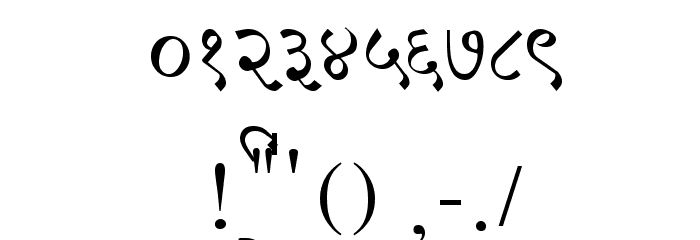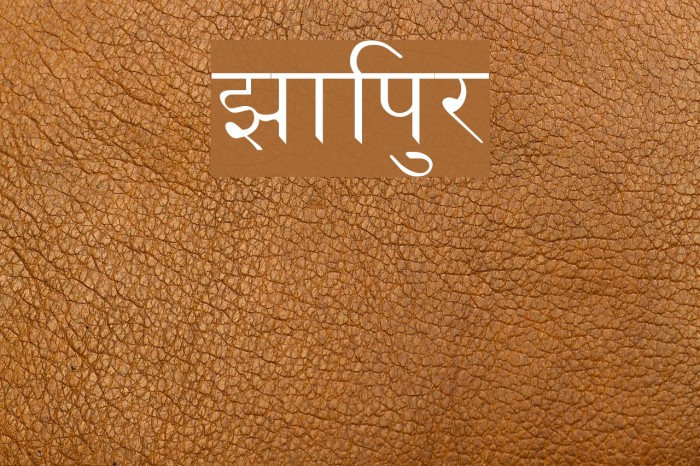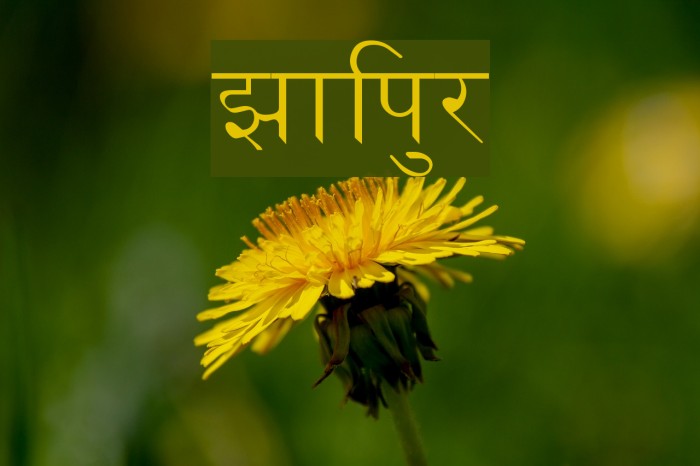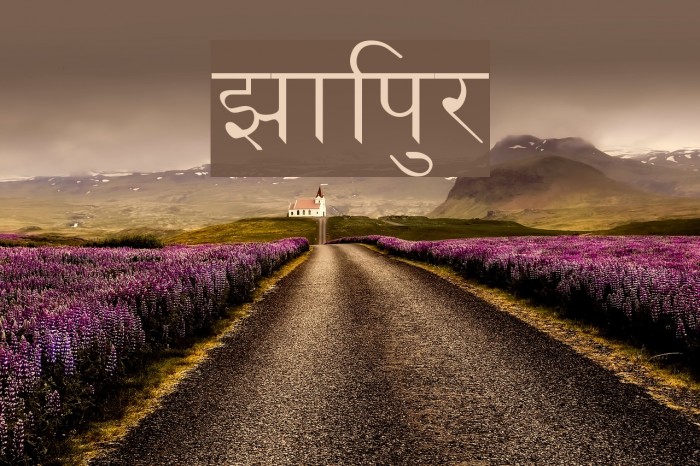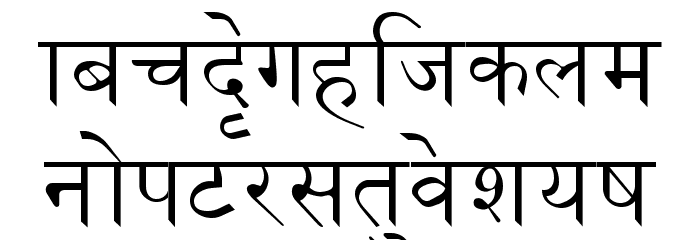
Jaipur Font
This typeface is a traditional Devanagari script, characterized by its elegant and flowing strokes. The characters are well-defined with a moderate contrast between thick and thin lines, giving it a balanced and readable appearance. The script maintains a classic look with its distinctive horizontal line running across the top of the characters, known as the 'Shirorekha'. The spacing between characters is normal, ensuring clarity and legibility. This font is suitable for conveying a sense of tradition and cultural heritage, making it ideal for use in contexts that require a touch of authenticity and historical depth.
A traditional Devanagari script with elegant, flowing strokes and moderate contrast.
• Proposed Projects: Ideal for cultural publications, educational materials, and traditional event invitations.